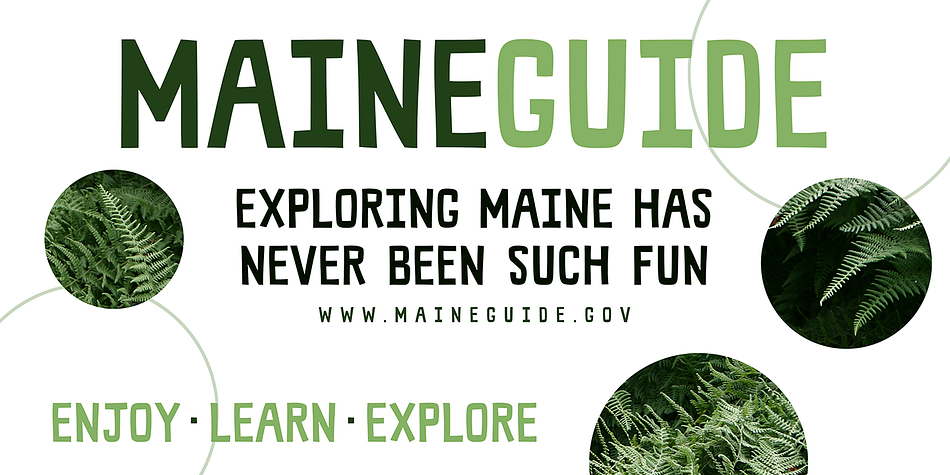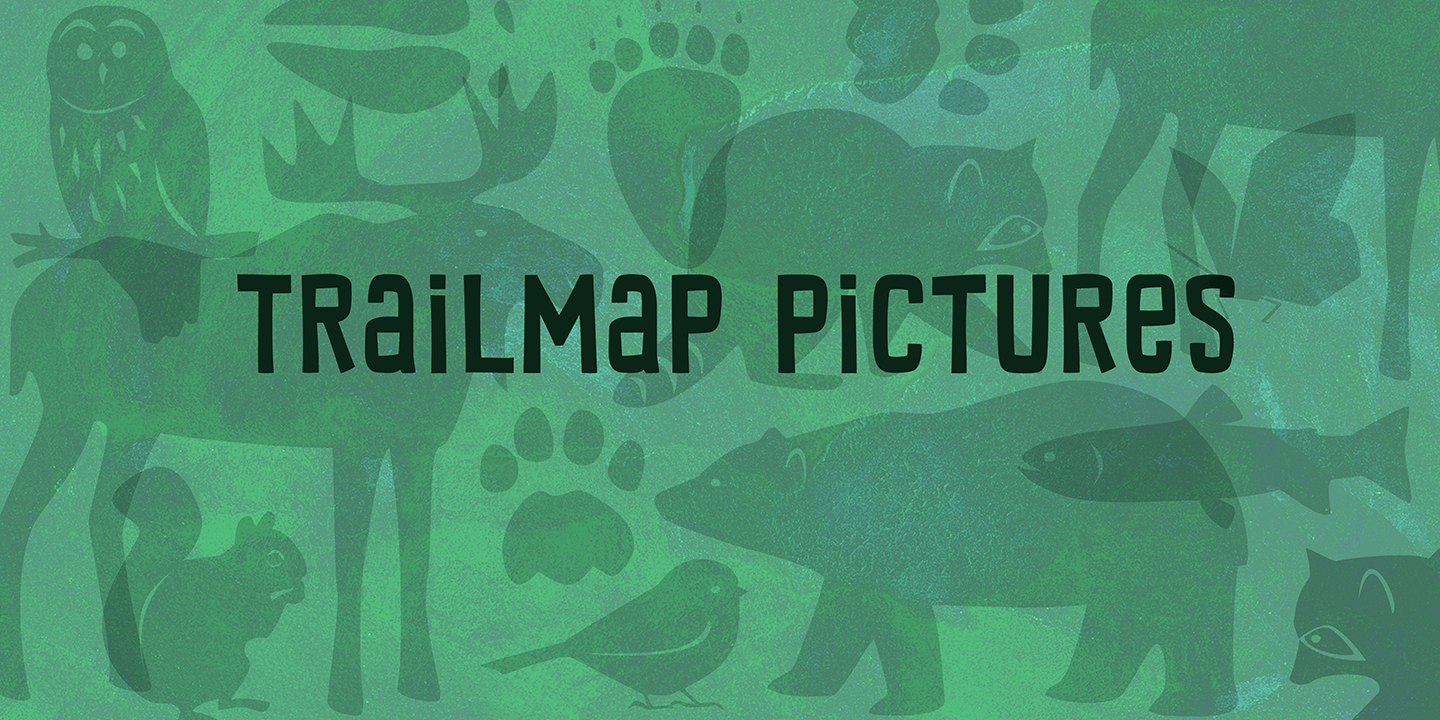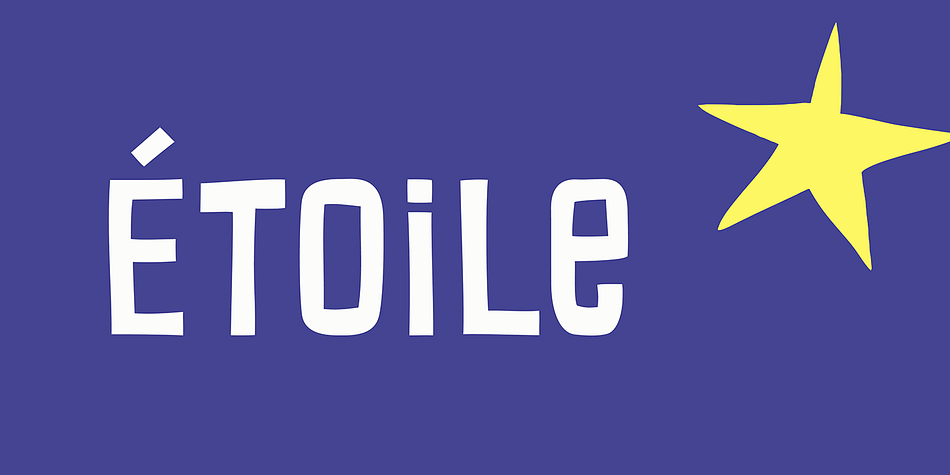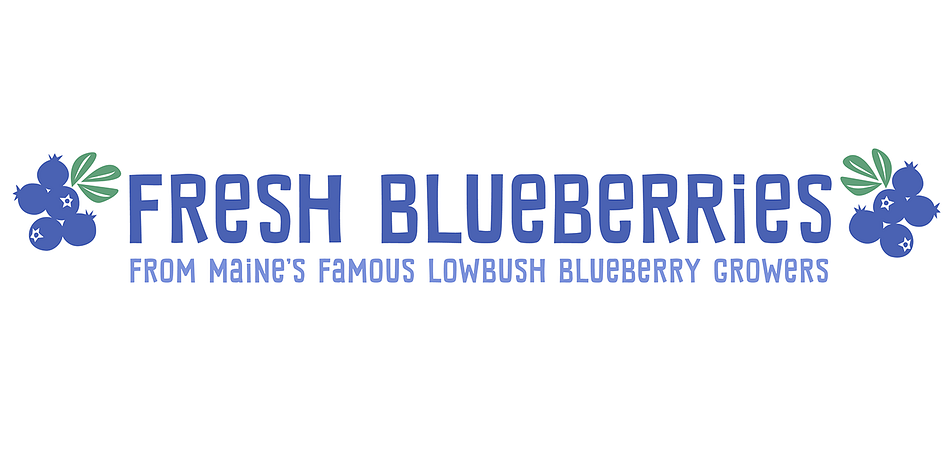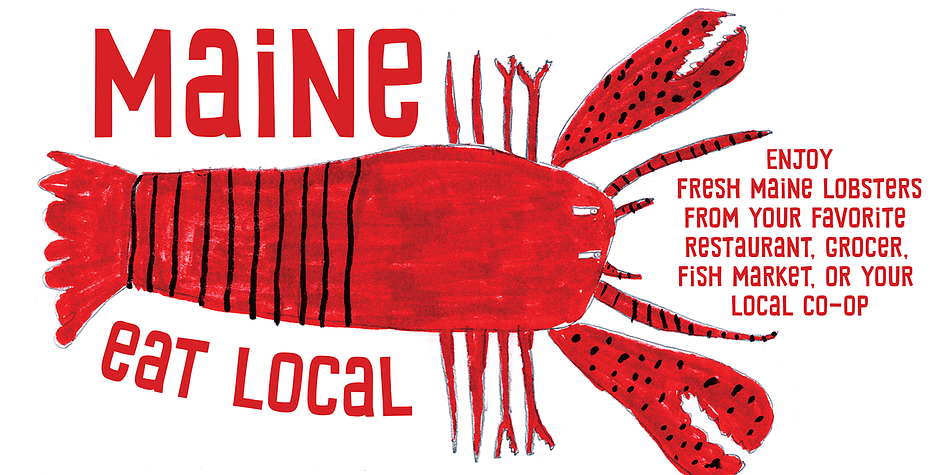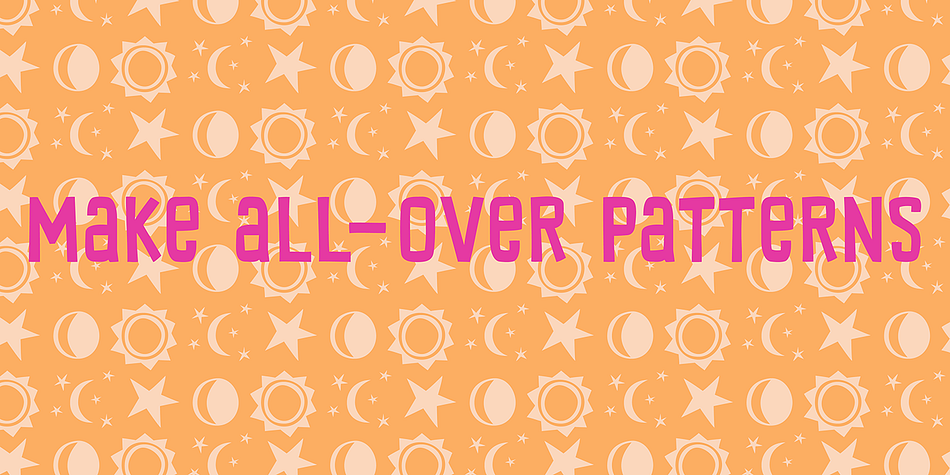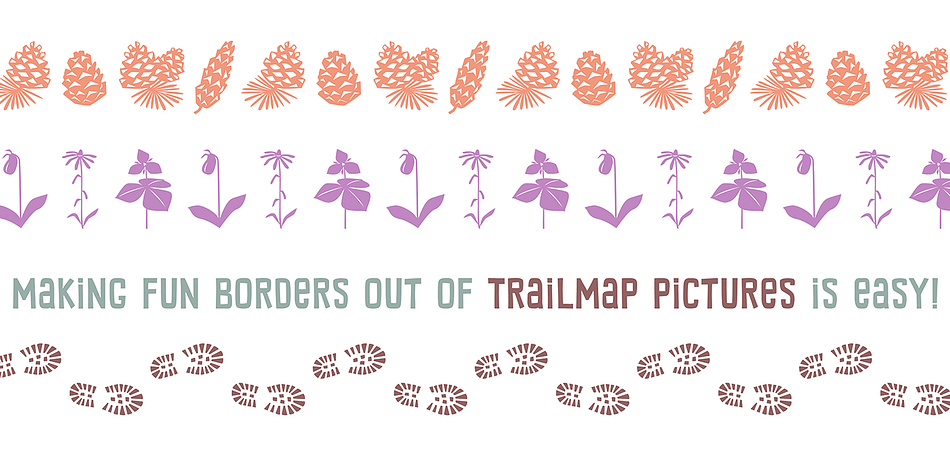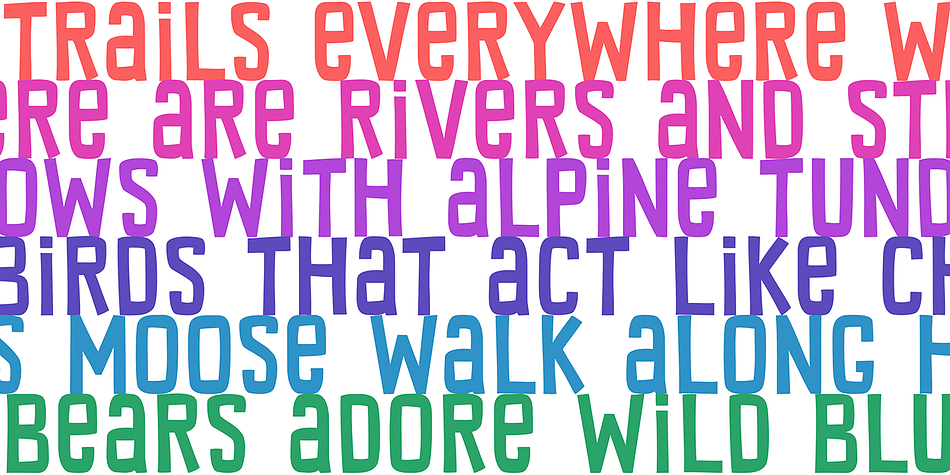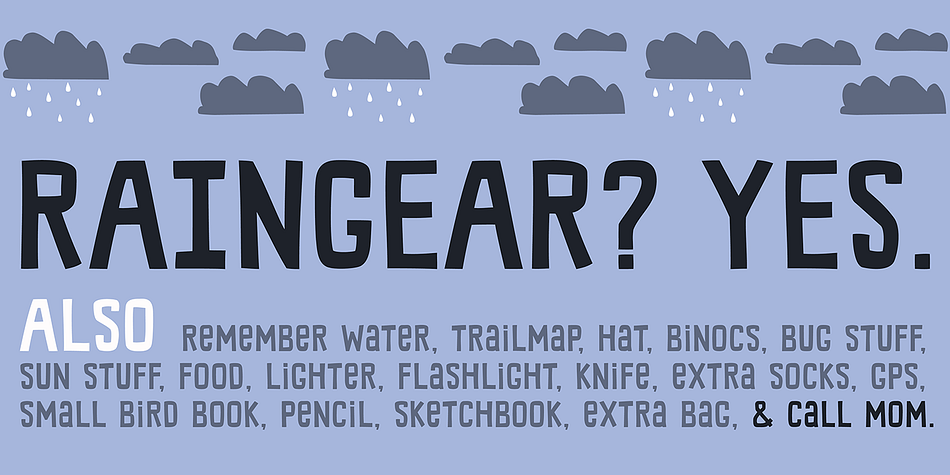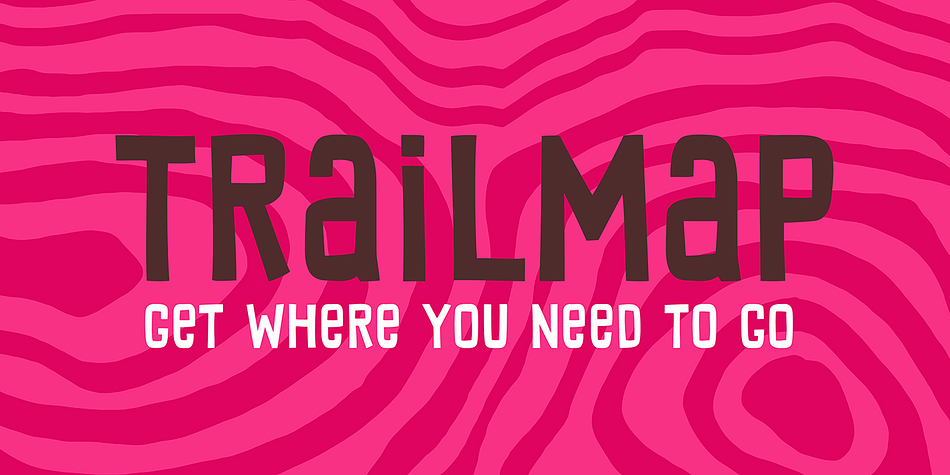
Trailmap is a dingbat and hand drawn font family. This typeface has two styles and was published by Atlantic Fonts.
Whether you’re comfortable in your hiking boots or booting up your computer, Trailmap gets you where you want to go with an engaging mix of lower and uppercase or all caps. For double letters, or anywhere that needs it, add extra variation by combining lower and uppercase letters. Trailmap coordinates naturally with Trailmap Pictures, a fantastically fun collection of wilderness icons from rainclouds to raccoons.